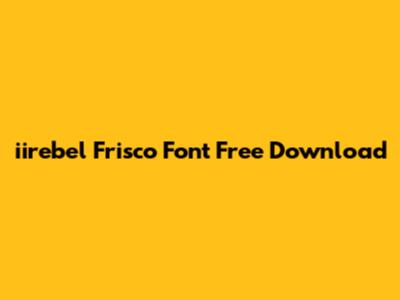
What is the iirebel Frisco Font?
First off, let's chat about what makes the iirebel Frisco font so special. This font is a modern, stylish typeface that's perfect for a wide range of design projects. Whether you're working on branding, web design, or print materials, iirebel Frisco can add a touch of sophistication and uniqueness. Its clean lines and balanced letterforms make it highly readable, while its distinct personality helps it stand out from the crowd. One of the key features of the iirebel Frisco font is its versatility. It works well in headlines, body text, and even logos. This adaptability means you can use it consistently across various elements of your design, creating a cohesive and professional look. Plus, the font often includes multiple weights and styles, giving you even more flexibility to play with different looks and feels. Designers love iirebel Frisco because it strikes a balance between being contemporary and timeless. It doesn't follow fleeting trends but instead offers a classic appeal that will keep your designs looking fresh for years to come. When you choose iirebel Frisco, you're investing in a font that can truly elevate your work and help you create memorable designs. Also, the iirebel Frisco font is a fantastic choice for anyone looking to add a bit of modern flair to their design projects. Its versatility, readability, and unique personality make it a valuable asset in any designer's toolkit. So, if you're ready to take your designs to the next level, consider giving iirebel Frisco a try. You might just find that it's the perfect font you've been searching for!
Why Use iirebel Frisco Font?
So, why should you even consider using the iirebel Frisco font? Well, there are tons of reasons! For starters, it's incredibly versatile. Whether you're designing a sleek website, eye-catching posters, or professional business cards, this font can adapt to fit your needs. Its modern yet timeless design ensures that your projects will look fresh and relevant for years to come. Think about how the right font can completely transform a design. iirebel Frisco has a unique personality that can add character and sophistication to your work. It's not just another generic font; it's a typeface with its own distinct style. This can help your designs stand out and leave a lasting impression on your audience. In addition to its aesthetic appeal, iirebel Frisco is also highly readable. This is crucial for ensuring that your message is clear and easily understood, whether it's in a headline or body text. A font that looks good but is hard to read isn't doing you any favors! Another great reason to use iirebel Frisco is its availability in various weights and styles. This gives you the flexibility to create visual hierarchy and add depth to your designs. You can use different weights for headings and body text, or experiment with italic and bold styles to emphasize important information. This level of customization can really elevate your designs and make them more engaging. Let's also talk about branding. If you're looking to create a strong and consistent brand identity, choosing the right font is essential. iirebel Frisco can help you establish a cohesive visual language that reflects your brand's personality and values. Whether you're a tech startup, a creative agency, or a traditional business, this font can be a valuable asset in building your brand. So, all things considered, iirebel Frisco is a fantastic choice for designers and creatives who want to add a touch of modern elegance to their projects. Its versatility, readability, and unique style make it a font that you'll reach for time and time again. Give it a try and see how it can transform your designs!
Tips for Using iirebel Frisco Font in Your Designs
So, you've got the iirebel Frisco font installed and ready to go. Now, let's talk about how to use it effectively in your designs! Using a font well can make all the difference in how your project looks and feels. First off, think about the overall tone and style of your design. iirebel Frisco is a modern and stylish font, so it works well in designs that are contemporary, sophisticated, or creative. It might not be the best choice for projects that require a more traditional or classic look. When using iirebel Frisco, consider the hierarchy of your text. Use different weights and sizes of the font to create visual interest and guide the reader's eye. For example, you might use a bold weight for headlines and a regular weight for body text. You can also use different sizes to emphasize important information or create a sense of scale. Spacing is another important factor to consider. Pay attention to the letter spacing, word spacing, and line height of your text. Adjust these settings to improve readability and create a more visually appealing layout. Too much or too little spacing can make your text look cluttered or disjointed, so experiment until you find the right balance. Color is also key. Choose colors that complement the font and enhance its readability. Avoid using colors that are too similar to the background color, as this can make the text difficult to read. Contrast is your friend! When using iirebel Frisco in logos or branding materials, think about how it represents your brand's personality and values. A font can communicate a lot about your brand, so choose it carefully. Consider using iirebel Frisco in combination with other fonts. Pairing fonts can add visual interest and create a more dynamic design. Just be sure to choose fonts that complement each other and don't clash. Experiment with different combinations until you find a pairing that works well for your project. Don't be afraid to break the rules! While it's important to follow basic design principles, sometimes the most creative and effective designs come from breaking the mold. So, experiment with different styles and techniques until you find something that works for you. By following these tips, you'll be able to use the iirebel Frisco font to its full potential and create stunning designs that stand out from the crowd. Happy designing!